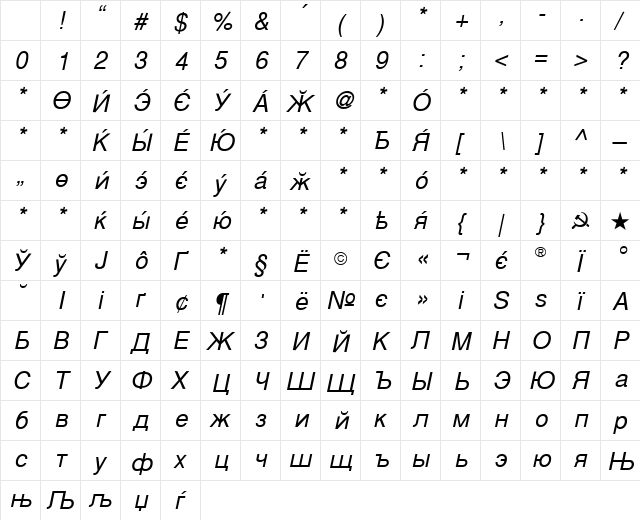
Complete CyrillicSans Oblique glyph index. Displaying only characters natively supported by CyrillicSans Oblique font.
CyrillicSans is a composed and adaptable typeface that performs quietly and consistently across a wide range of design contexts. The slanted form adds forward momentum and visual energy.